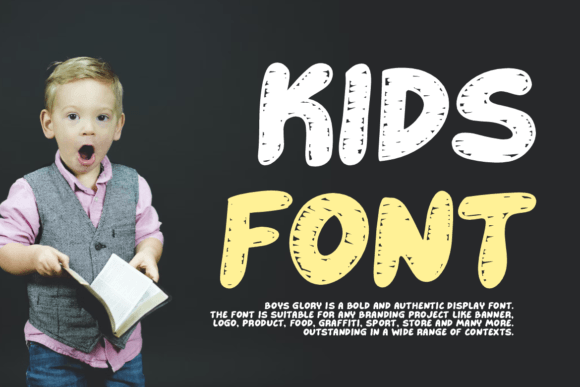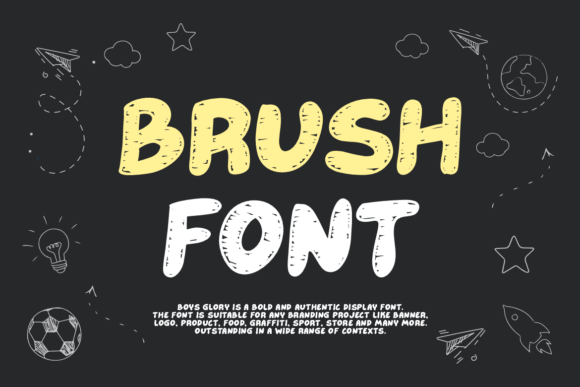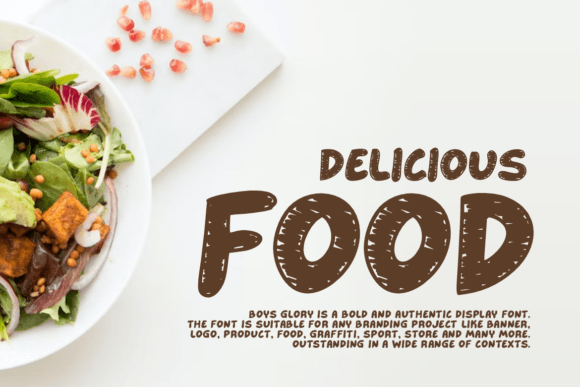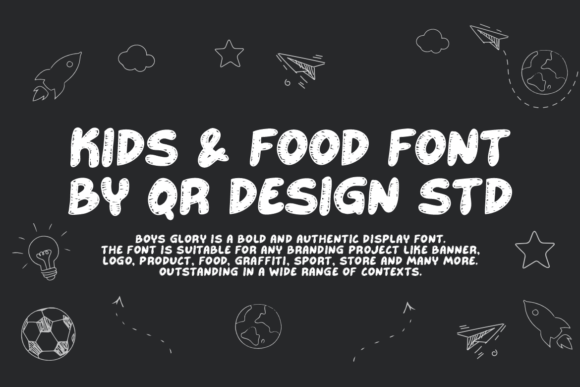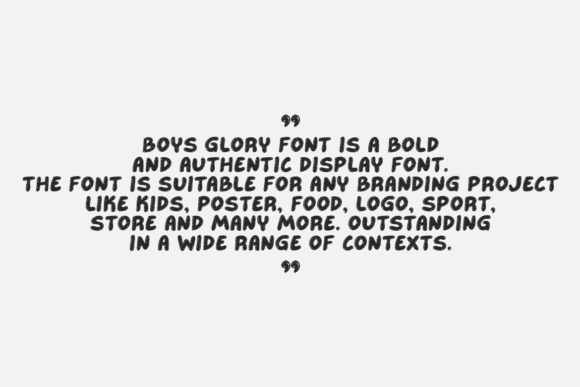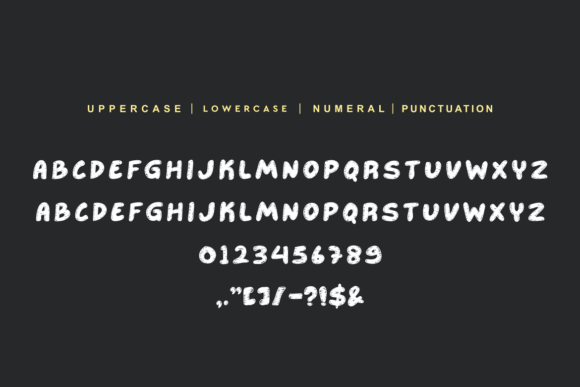
Discover Your New Favorite Font: Boys Glory Font
Have you ever been in a creative flow, surrounded by colors, shapes, and endless possibilities? You’re brainstorming ideas for a new project, and suddenly, the perfect font pops into your mind. For designers and crafters alike, finding the right font can be the game-changer that elevates their work from good to great. One such font that’s sure to bring a smile to your face is the Boys Glory Font.
This cheerful display font is designed to convey friendliness and approachability, making it perfect for a wide range of applications, from digital design to handmade crafts and presentations. With its easy-to-read characters and playful vibe, Boys Glory Font is an excellent choice for anyone looking to add a touch of whimsy and fun to their work.
Boys Glory Font Key Features
- Font Style: A bold, sans-serif font with a touch of nostalgia and playfulness.
- Unique Characteristics: The font features a unique blend of modern and vintage elements, making it perfect for designs that require a sense of nostalgia and playfulness.
- Characters: Includes a wide range of characters, including uppercase and lowercase letters, numbers, and punctuation marks.
Designer Review: Boys Glory Font
Overall, I found the Boys Glory font to be a unique and eye-catching choice for certain projects. ✨ The font’s playful, energetic vibe makes it perfect for branding and advertising campaigns targeting a younger demographic. The bold lines and curved edges create a dynamic feel that can add a touch of excitement to any design.
However, I did encounter some limitations while working with the Boys Glory font. ⚠️ The font’s irregular shapes and inconsistent line weights can make it challenging to use in situations where precise typography is required, such as in body text or technical documentation. Additionally, the font’s limited character set may not be suitable for projects requiring extensive typing.
Here are some specific areas where the Boys Glory font excels and falls short:
- ✨ Great for bold, attention-grabbing headlines
- ✨ Ideal for creative, experimental projects
- ⚠️ May not be suitable for body text or technical documentation
- ⚠️ Limited character set may not be suitable for extensive typing
- ⚠️ Can be difficult to use in situations requiring precise typography
Overall, I think the Boys Glory font is a great addition to any designer’s toolkit, but it’s essential to use it judiciously and understand its limitations.
The Boys Glory Font is suitable for a variety of designs, including:
- Photography captions and quotes
- Event signage and banners